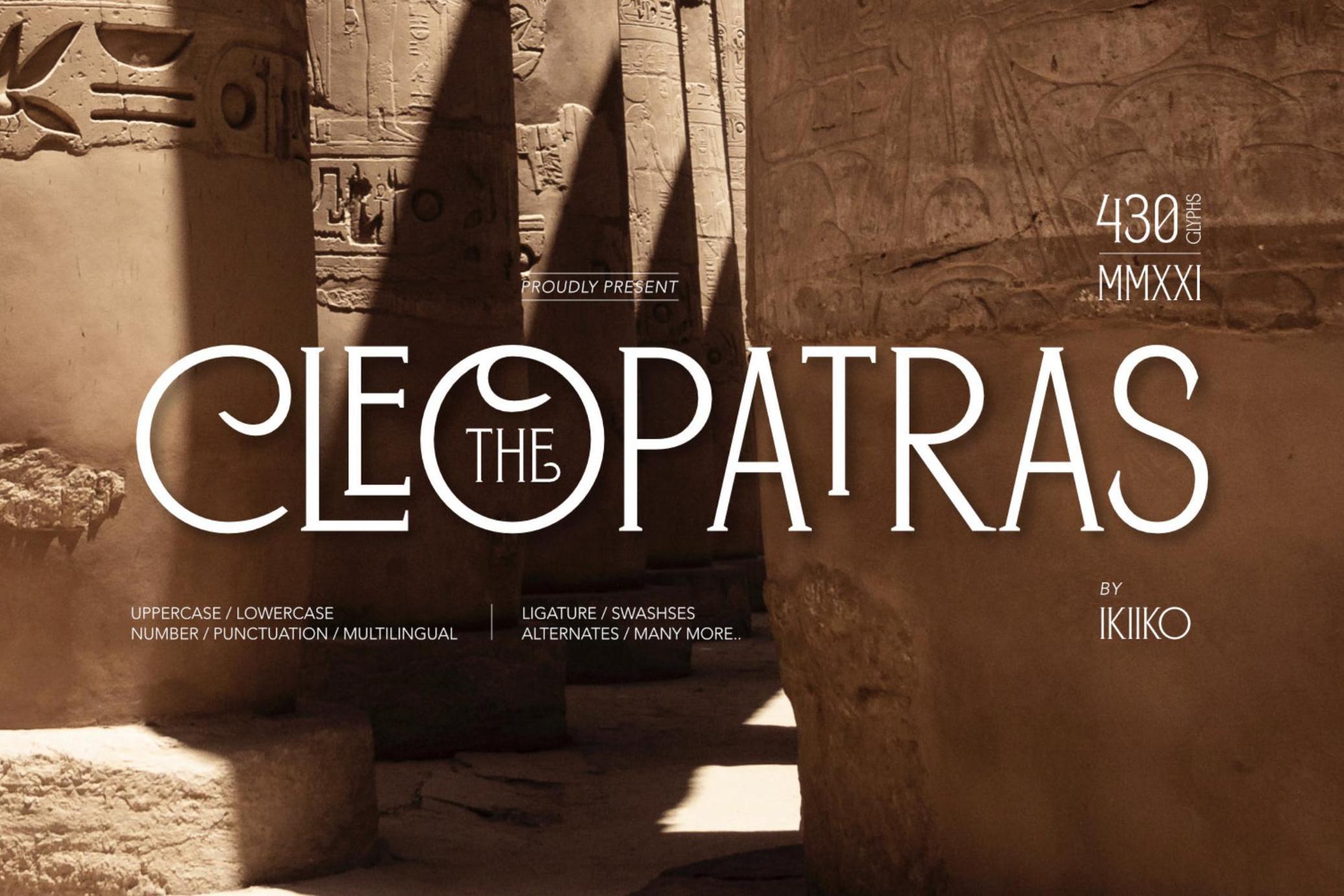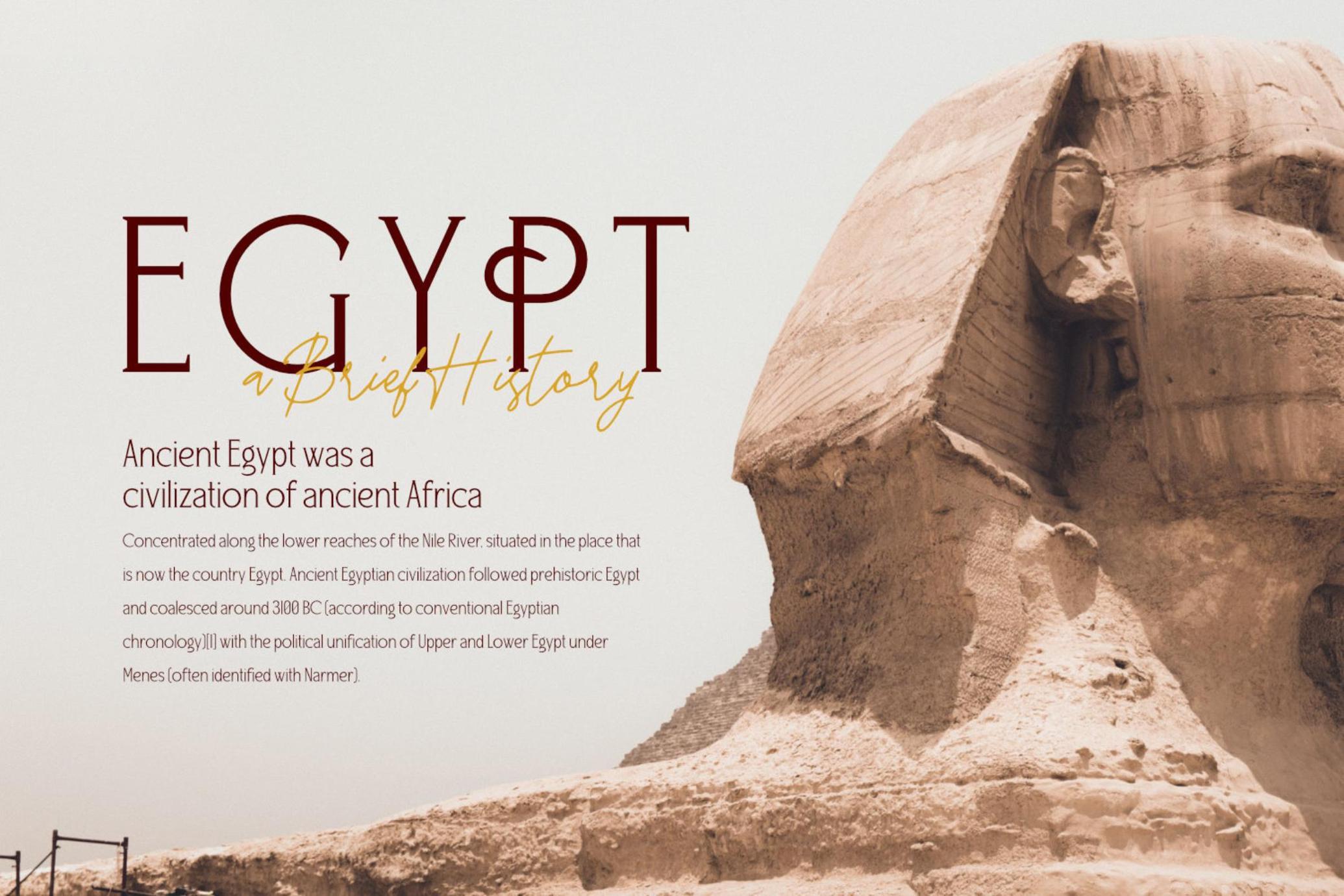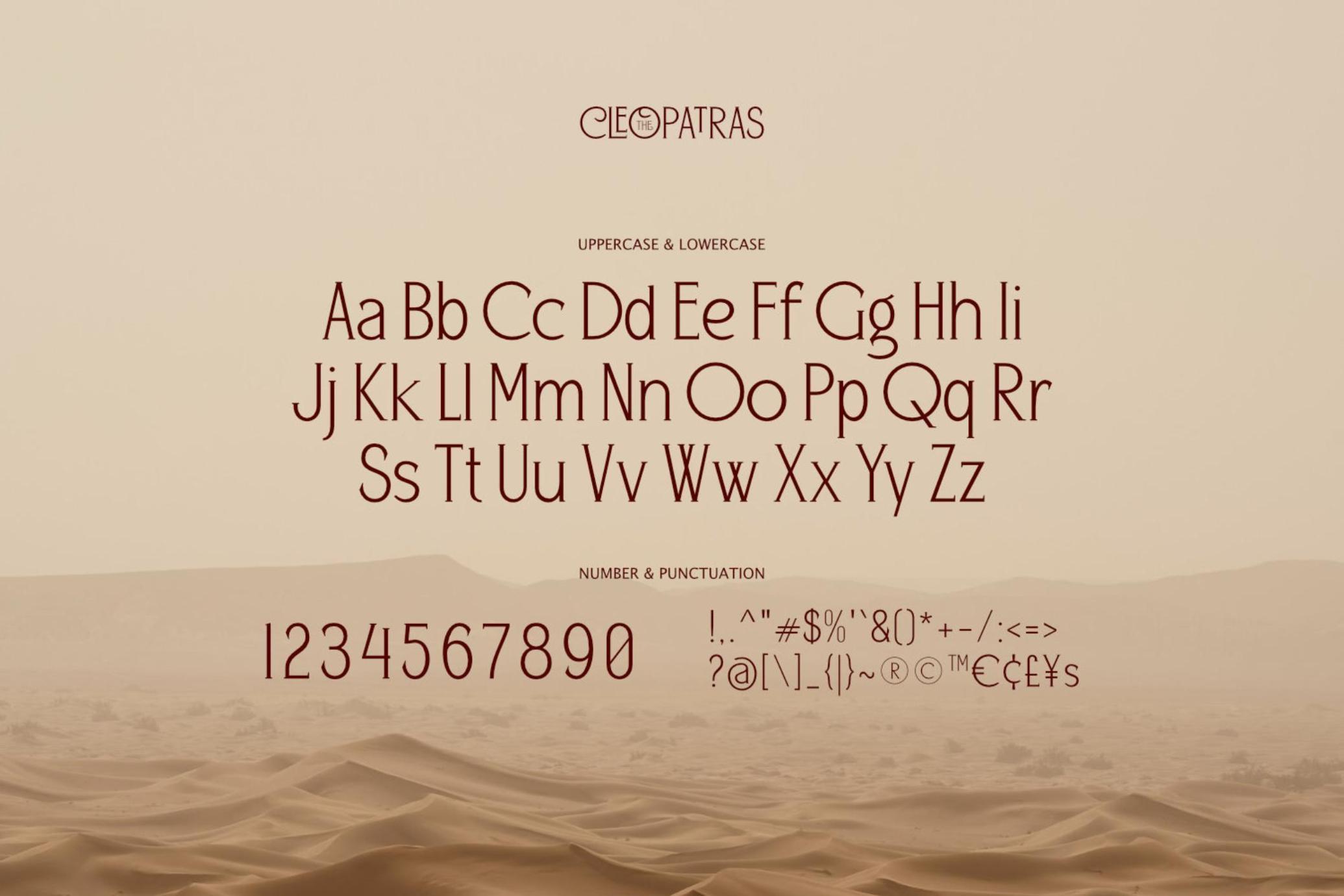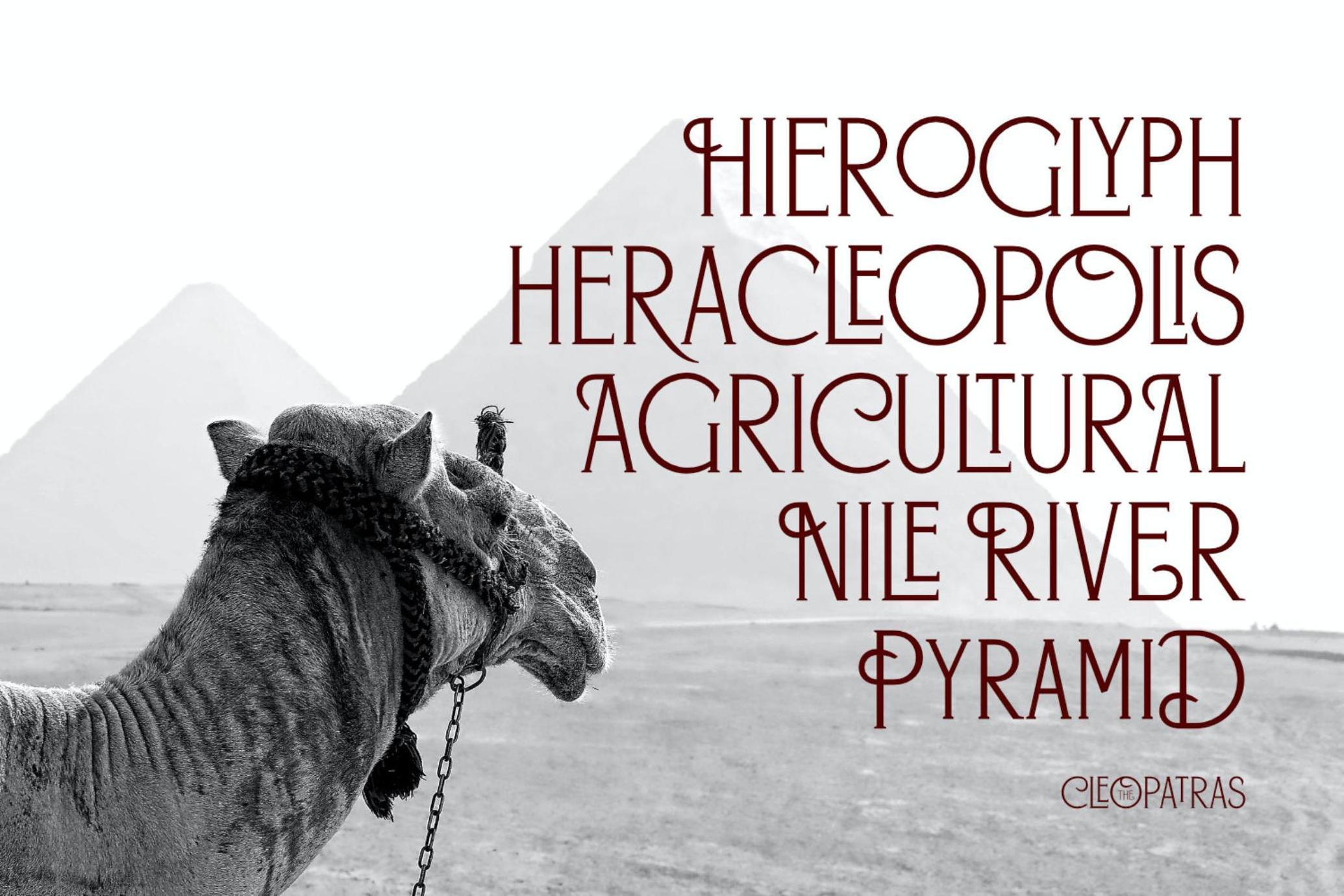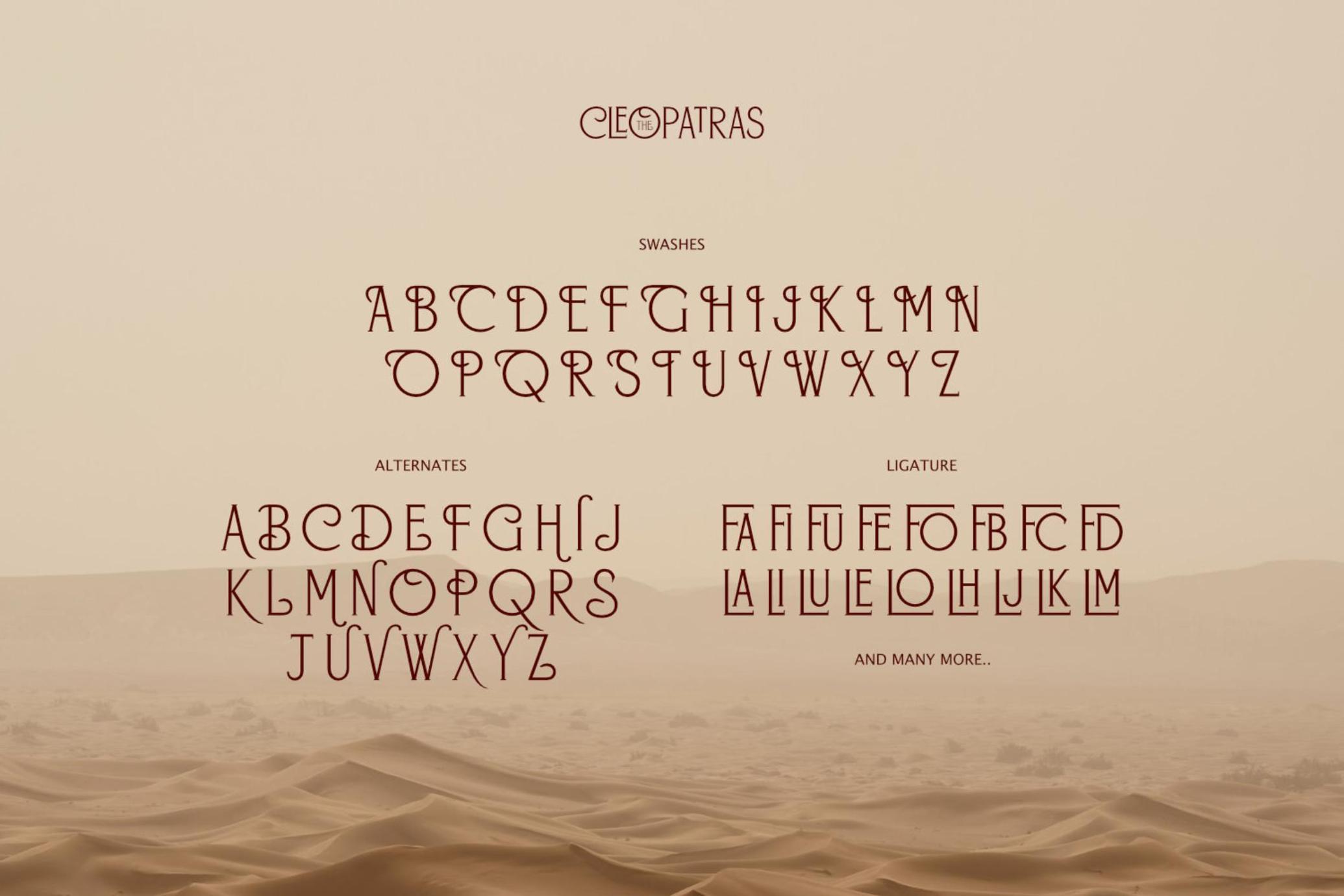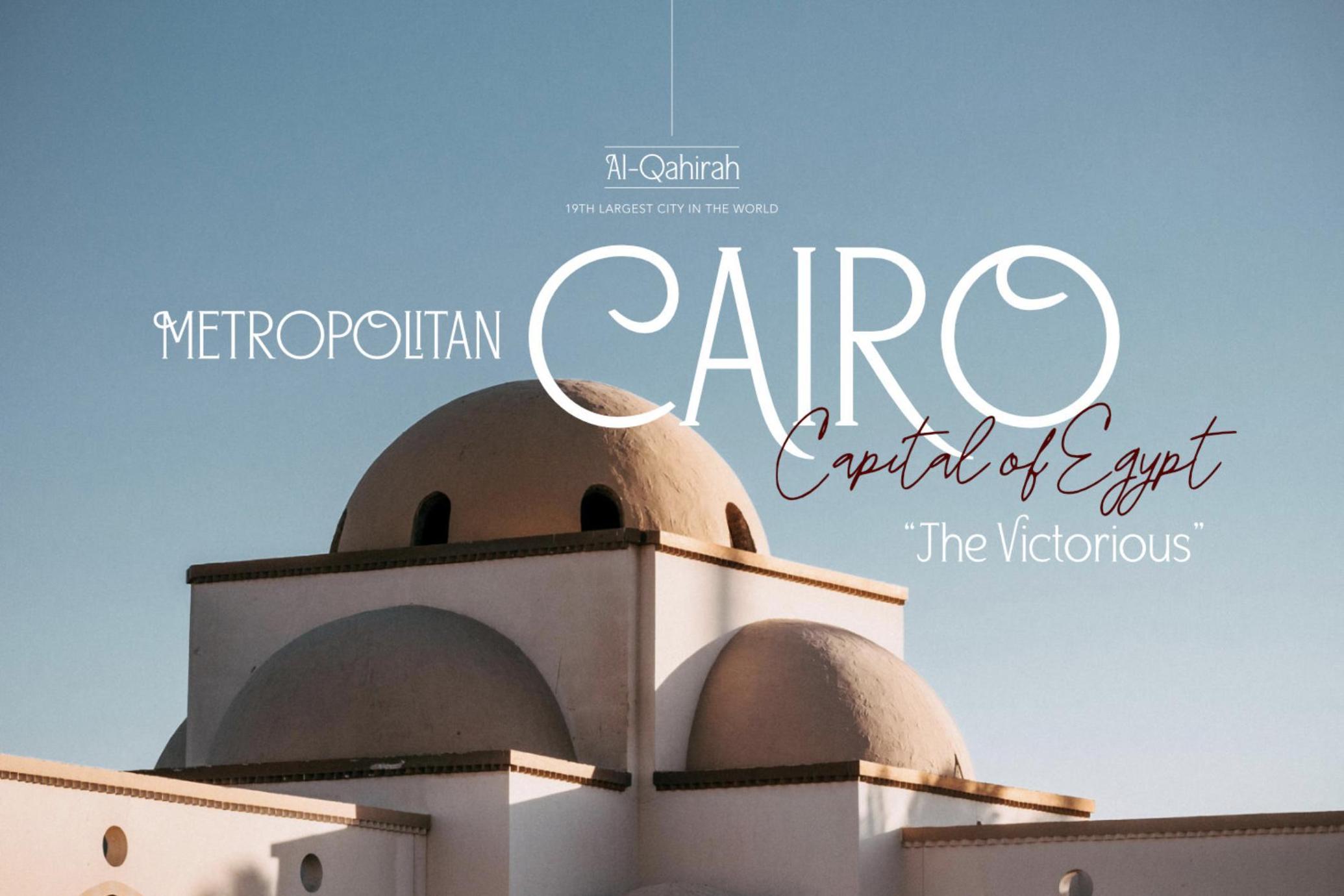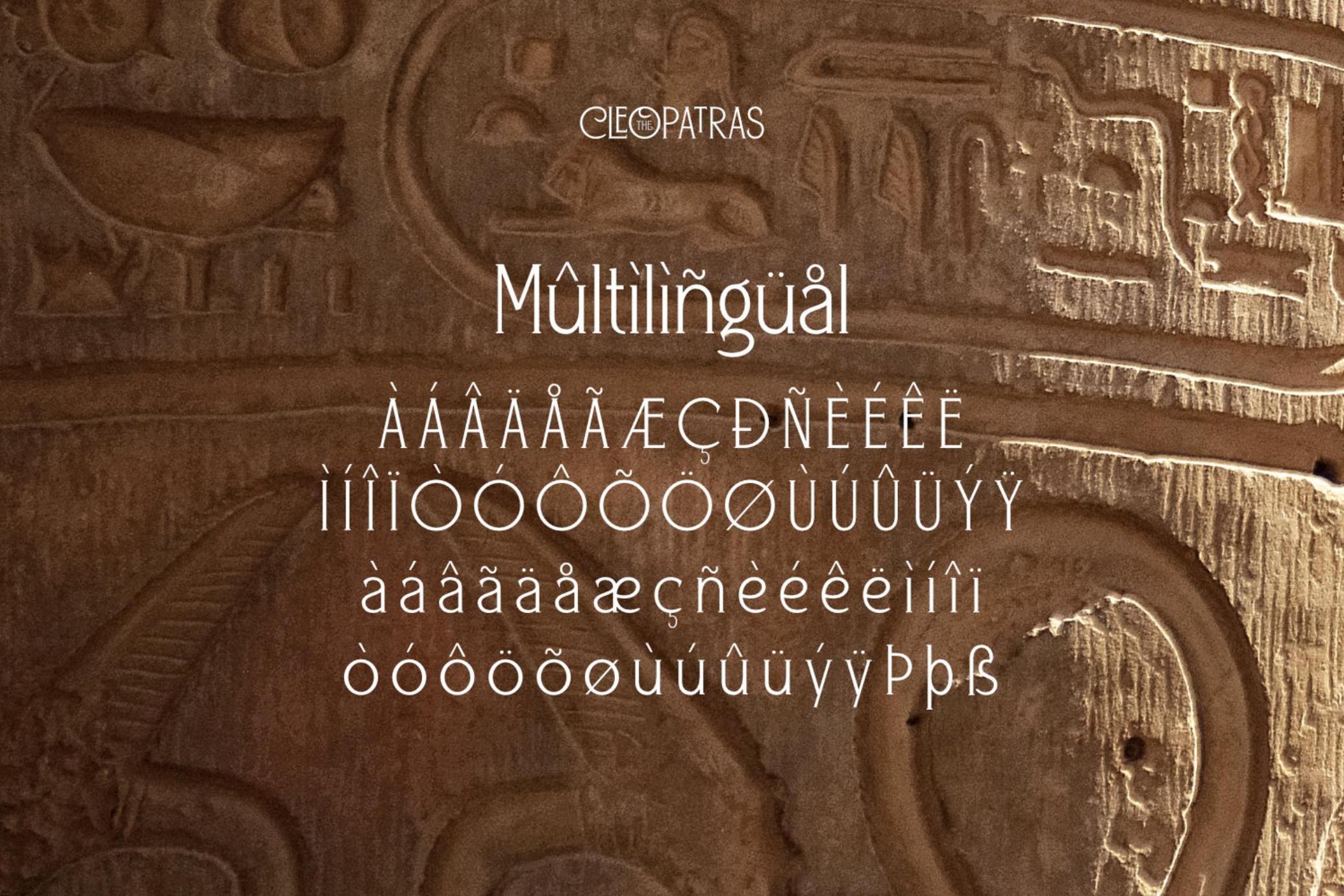
The Cleopatras - Heritage Font
Cleopatras
The Cleopatras is a clean serif font with unique characters, having a variety of alternative style sets to choose. You can use various techniques to form different characters. This typeface is perfect for an elegant logo, branding, travel promotion, layout magazine, beauty product, packaging product, quotes, or simply as a stylish text overlay to any background image.
- Number & Punctuation
- Ligatures & Swashses
- Alternates Set